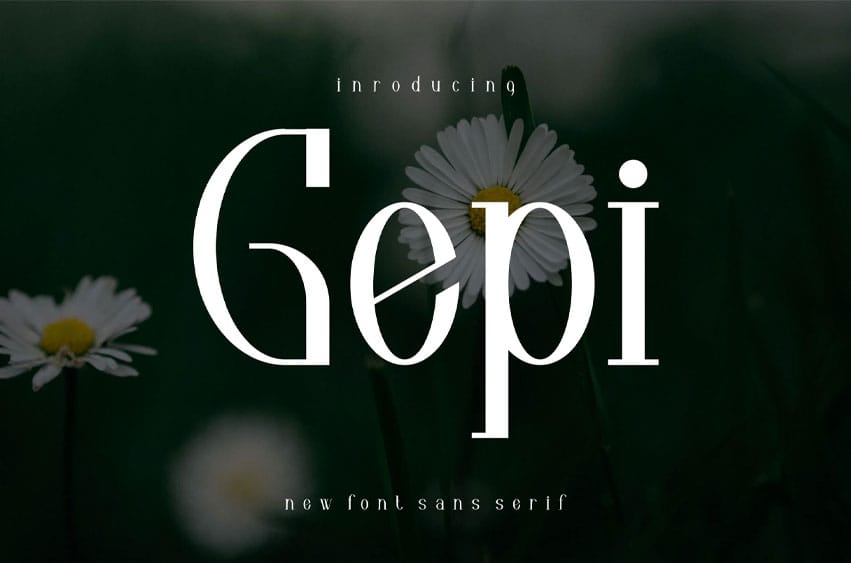
Gepi Font Display Eleagan Sans is an awesome and authentic display font. It is suitable for flyers, posters, novels, letterheads, or any design requirements you want to be awesome.